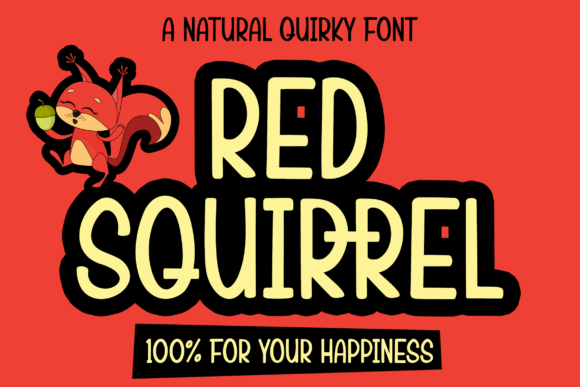
Embark on a whimsical typographical adventure with our enchanting Red Squirrel Font, a playful display font that exudes a childlike spirit. Crafted by the renowned Tigade std., this font eloquently marries quirkiness and joy, making it an ideal choice for any design seeking a touch of whimsy.
Escape into the realm of imagination, where Red Squirrel's charismatic curves and playful lines ignite creativity. Its distinct character shines through in vibrant hues, seamlessly complementing children-themed designs. Whether adorning a picture book's pages, invitations to a magical party, or playful packaging, this font transforms ordinary designs into extraordinary tales.
Red Squirrel's versatility extends beyond its inherent charm. Its ability to evoke nostalgia and inspire joy makes it a perfect companion for branding, marketing materials, and social media posts targeting a youthful audience. Its eye-catching presence captivates attention, leaving a lasting impression on those who encounter it.
Beyond its aesthetic appeal, Red Squirrel possesses a practical side. As an easy-to-read display font, it ensures clear communication without compromising on visual impact. Its adaptability to various sizes makes it suitable for both headlines and body text, providing designers with endless creative possibilities.
Embrace the playful spirit of Red Squirrel and let your designs dance with joy. Its whimsical nature will inject a touch of magic into any project, making it the perfect choice for designers seeking a font that inspires smiles and captivates hearts.